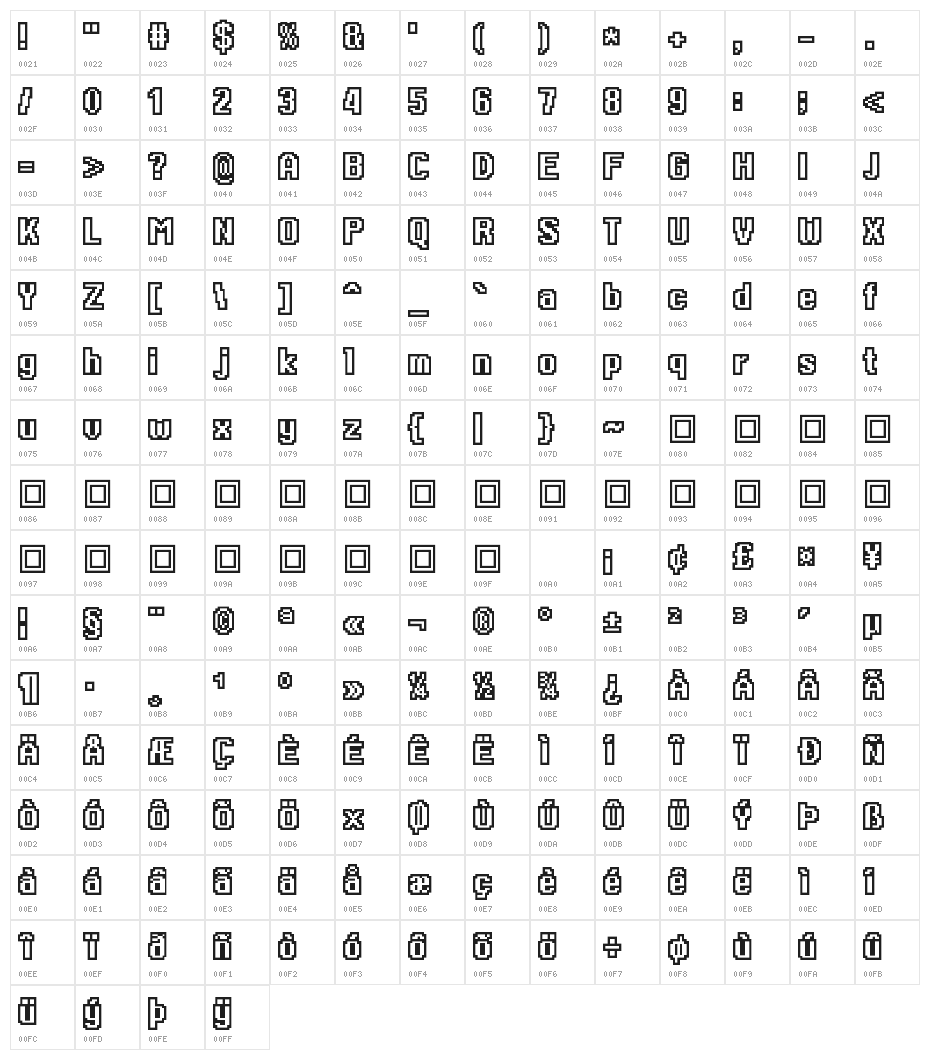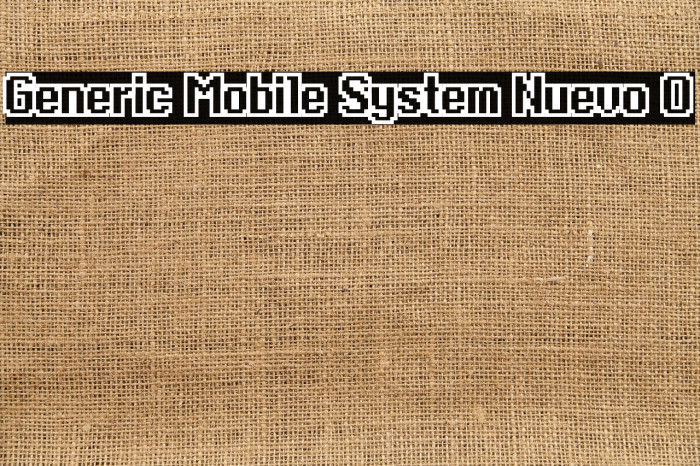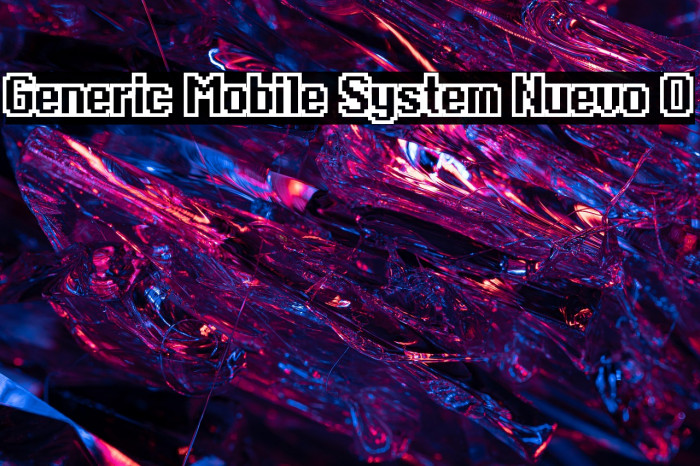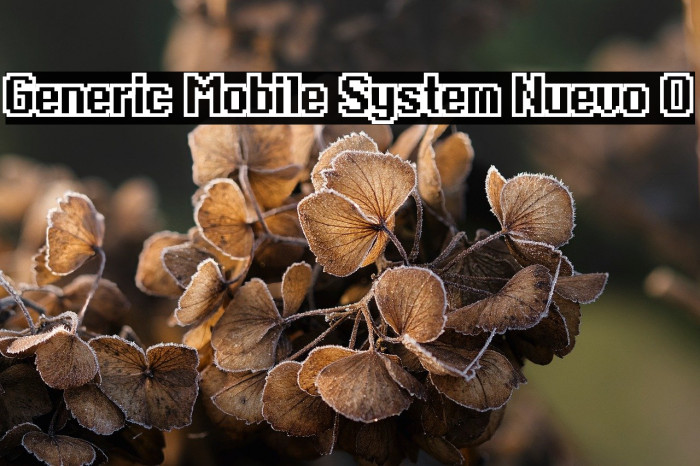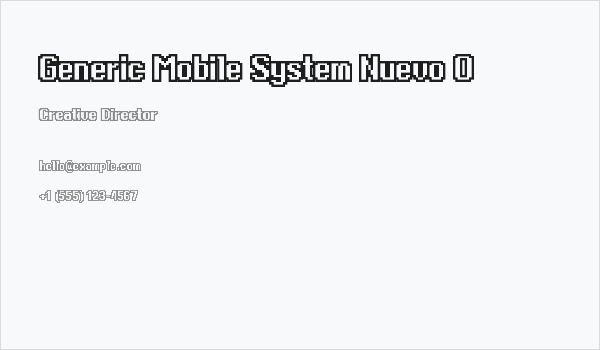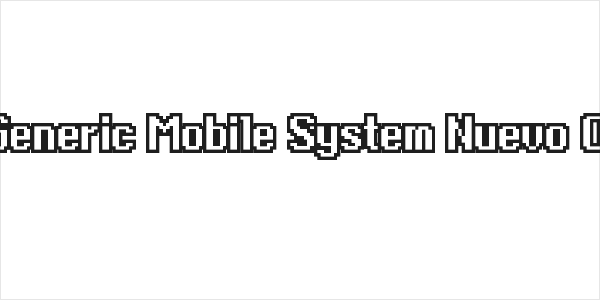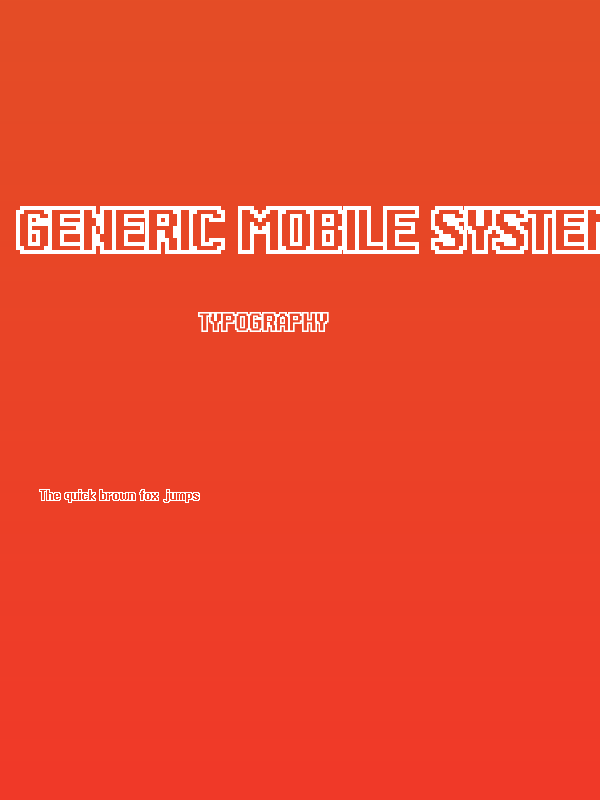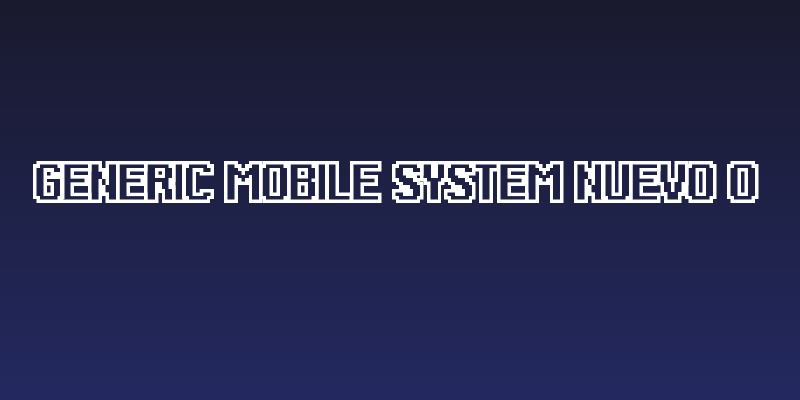
Generic Mobile System Nuevo O Font
Generic Mobile System Nuevo O Description
This font features a bold, pixelated style reminiscent of classic video game graphics. Each character is constructed with a blocky, grid-like appearance, giving it a retro digital feel. The uppercase and lowercase letters maintain a consistent height, with sharp angles and straight lines defining their structure. Numbers and special characters follow the same pixelated design, ensuring uniformity across all glyphs. The font's distinct style makes it highly legible at various sizes, ideal for capturing attention with its nostalgic aesthetic.
| Overall Style | Retro, Digital |
| Proposed Projects | Ideal for retro-themed designs, video game graphics, digital art projects, and nostalgic branding. |